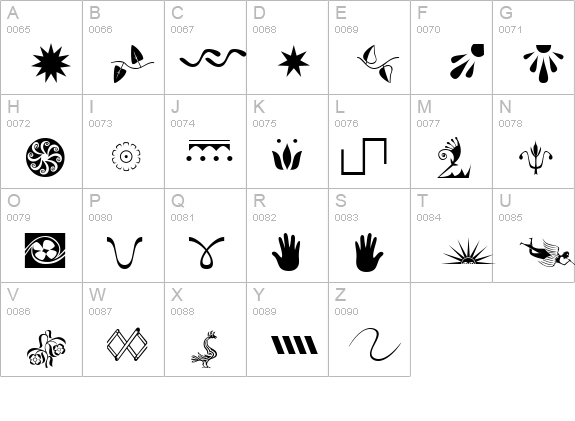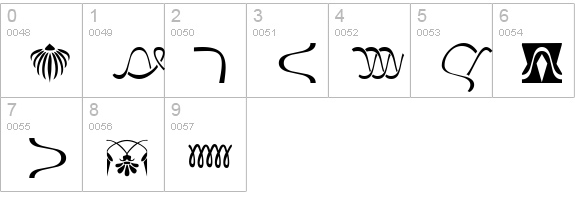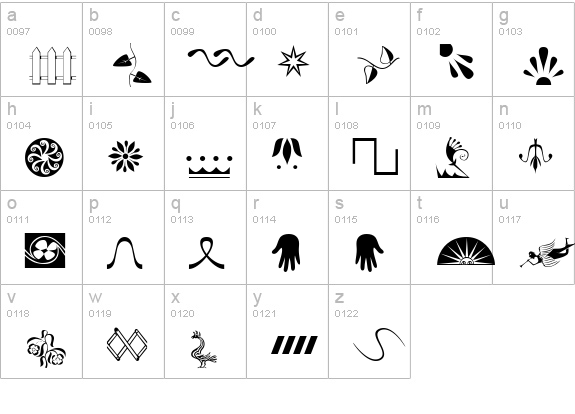
Introducing XRoomingHouse font, a versatile and stylish typeface perfect for a wide range of design projects. This modern font features a unique and eye-catching design that will make your text stand out. With its sleek lines and elegant curves, XRoomingHouse font adds a touch of sophistication to any project. One of the best things about XRoomingHouse font is that it is completely free to download at FontsMarket.com. This means you can add this beautiful font to your collection without any cost, making it perfect for both personal and commercial use. Whether you're designing a website, creating marketing materials, or working on a creative project, XRoomingHouse font is sure to impress. Don't miss out on the opportunity to enhance your designs with this stunning font. Download XRoomingHouse font today and elevate your projects to the next level!